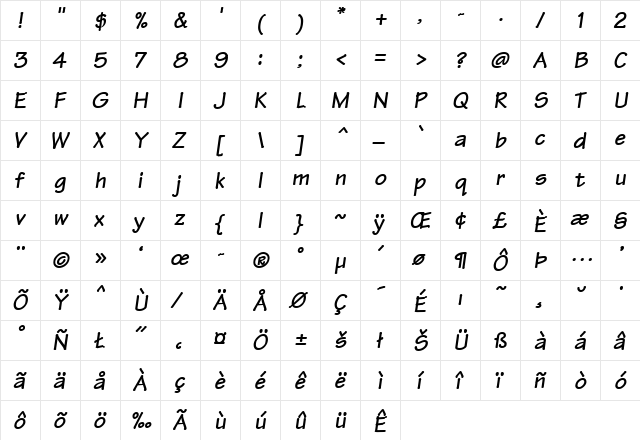
Tekton-BoldOblique Regular
Design Context for Tekton-BoldOblique Typeface
Tekton-BoldOblique is a composed and adaptable typeface that performs quietly and consistently across a wide range of design contexts. The dynamic lean of this cut emphasises speed and emphasis in any layout. Its bold stroke weight gives it real presence on the page.
Pro Tip: Try Tekton-BoldOblique for annotation and caption copy alongside an upright companion — the contrast in angle creates a dynamic but ordered typographic system.